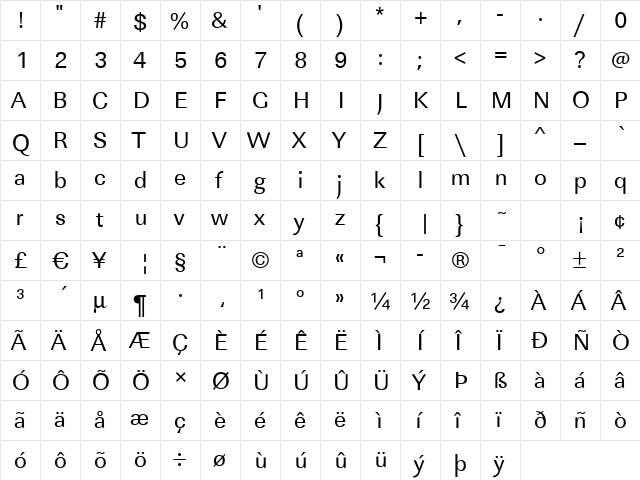
LinearStd Regular
Design Context for LinearStd Typeface
LinearStd takes a measured approach to typography — its balanced proportions and neutral character make it a reliable workhorse for both digital and print work.
Pro Tip: Use LinearStd in both headline and body roles to test its range before committing to a single application.